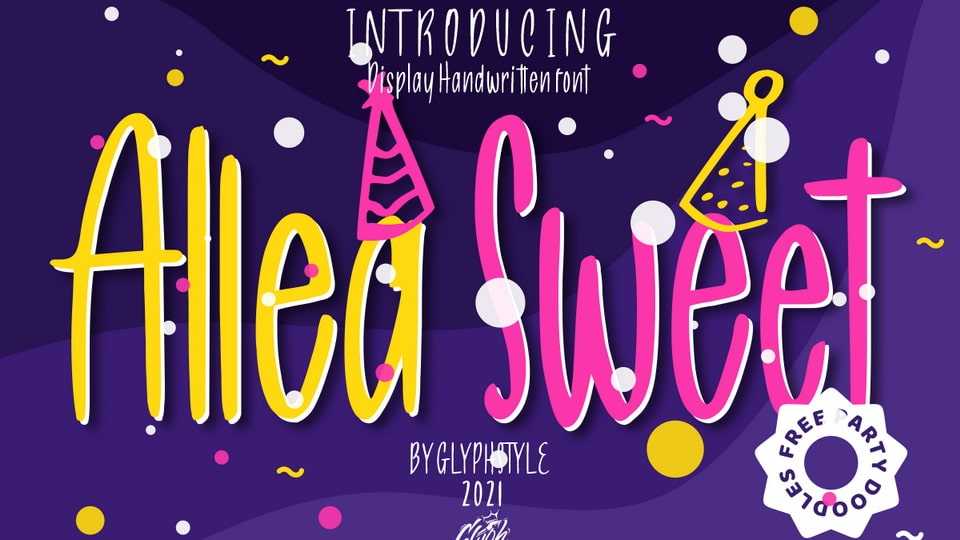
Download Allea Sweet font, a handwritten typeface that is easy to read and looks cheerful. This super cute font is perfect for cute design projects or themed parties, celebrations and kids.